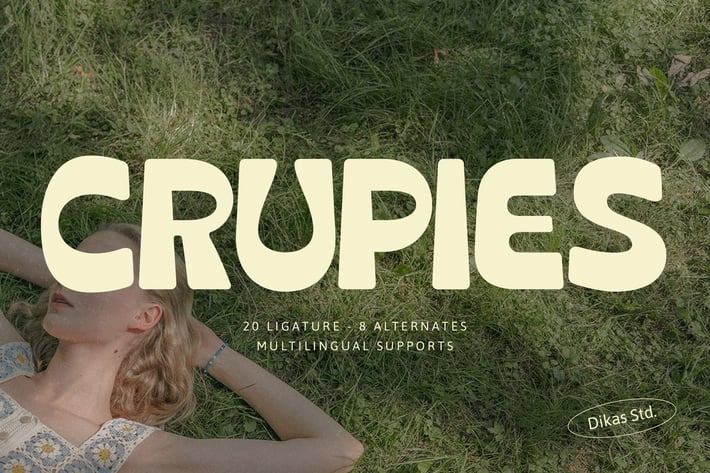
Crupies - Bold Reverse Contrast Font
Crupies is a chunky, rounded font with a cool reverse contrast that’s made for retro, groovy, and pop-style designs. It's awesome ligatures and alternative characters let you get creative and playful with your projects. Whether you’re going for something fun or just want a bold, standout look, Grupi has got you covered.